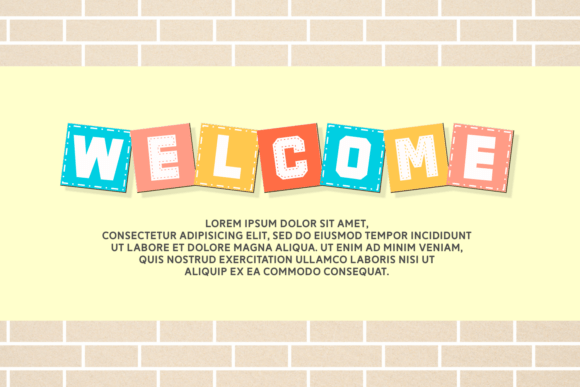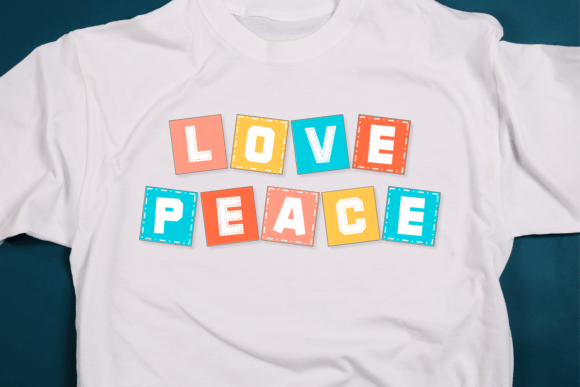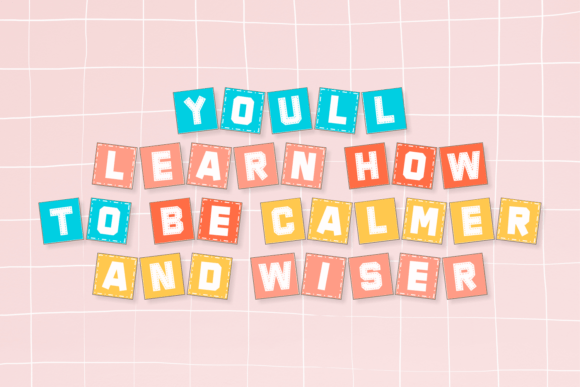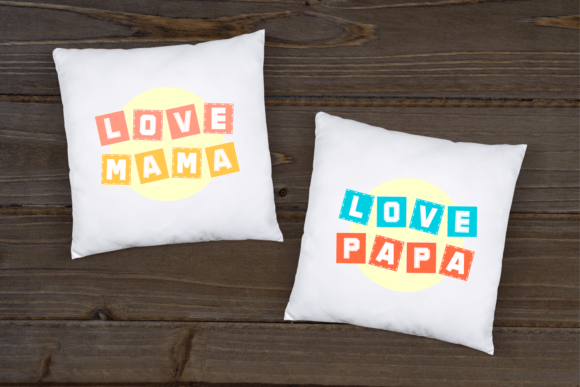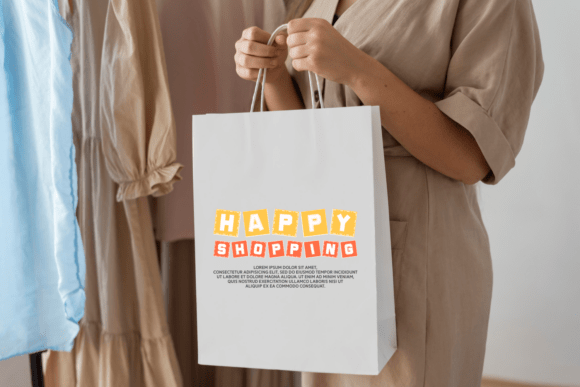
Discover the Playful World of Blue Shape Font
I’ll never forget the time I was working on a children’s book cover design project, and my client asked for a font that was both playful and sophisticated. I scoured the internet, tried out countless fonts, but nothing seemed quite right. That was until I stumbled upon the Blue Shape font. It’s been a game-changer for my design projects ever since! 🎉
What Makes Blue Shape Font Special?
The Blue Shape font is a versatile decorative display font that comes with an array of categories, including Fancy, Kids Puzzle, Branding, and Product. Its unique blend of playfulness and elegance makes it perfect for a wide range of design projects, from children’s literature to branding and craft projects.
- ✨ Unique and eye-catching design that’s sure to grab attention
- ✅ Highly versatile and adaptable to different design projects
- 🎉 Extensive range of categories and styles to choose from
- 👍 Excellent for creating logos, logotypes, and branding materials
- 🤔 May not be suitable for body text or long-form content due to its decorative nature
- ⚠️ Some users may find the font a bit too playful for certain projects
The Story Behind Blue Shape Font
The Blue Shape font was designed by a team of creatives who wanted to create a font that was both playful and sophisticated. Inspired by the world of children’s literature and education, they crafted a font that would bring a sense of wonder and excitement to design projects. The result is a font that’s both versatile and eye-catching, perfect for a wide range of design applications.
Q: What type of projects is Blue Shape font best suited for?
A: Blue Shape font is perfect for children’s literature, branding, craft projects, and educational materials.
Q: Is Blue Shape font easy to read?
A: Blue Shape font is designed to be eye-catching and decorative, but may not be suitable for long-form content or body text.